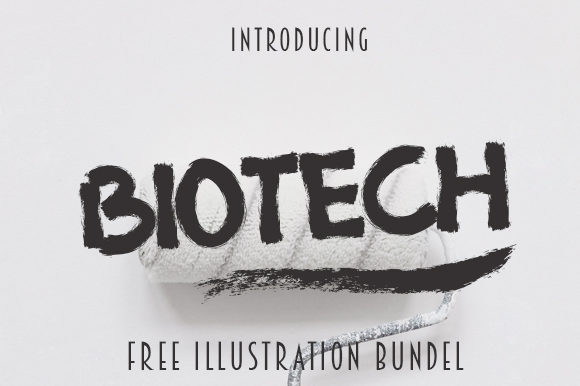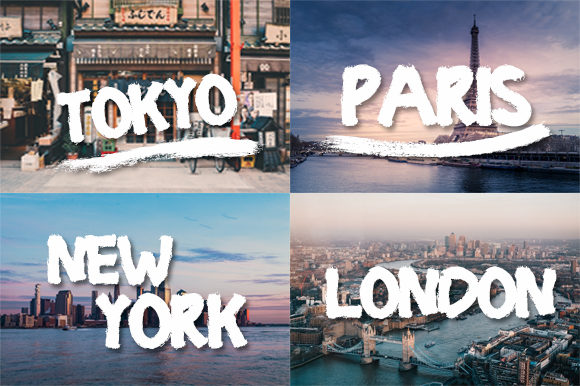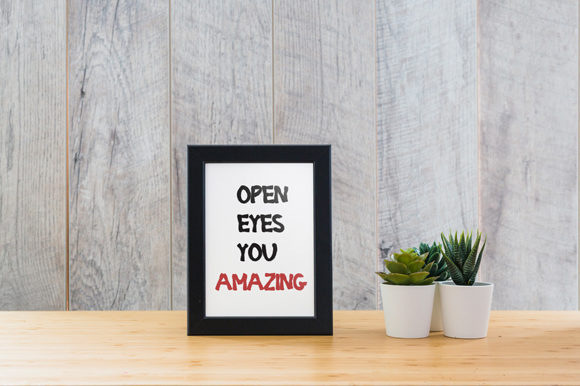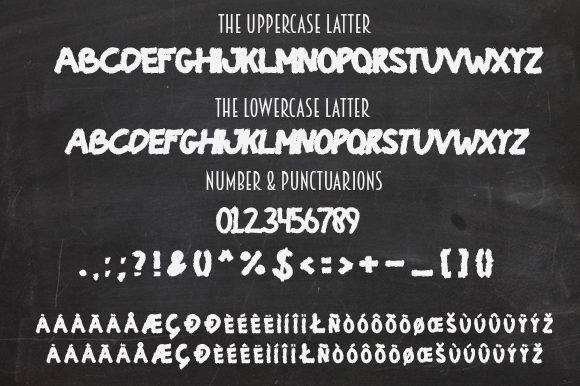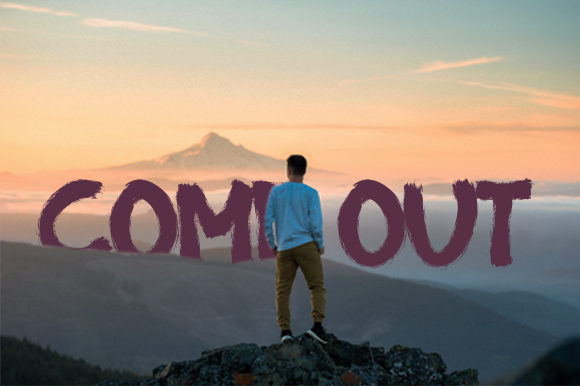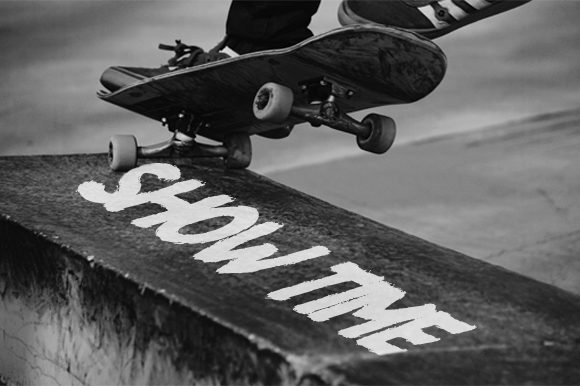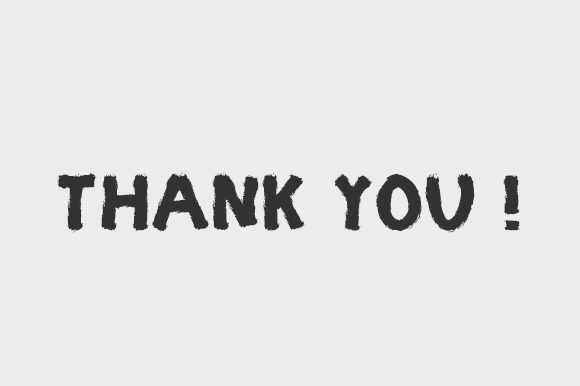
Biotech Font
About Biotech Font
Biotech is hand painted typeface with a messy, rough and strong feel, perfectly suited for any design occasions. Get inspired by its bold charm!